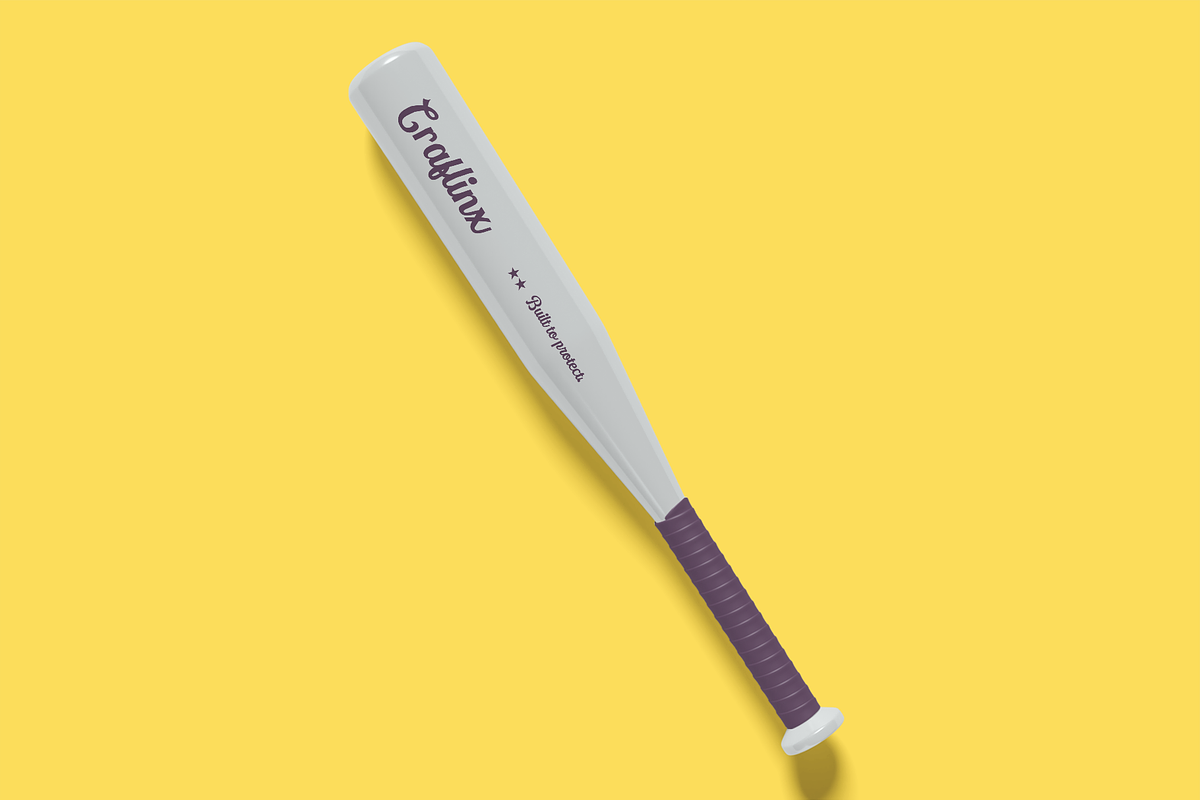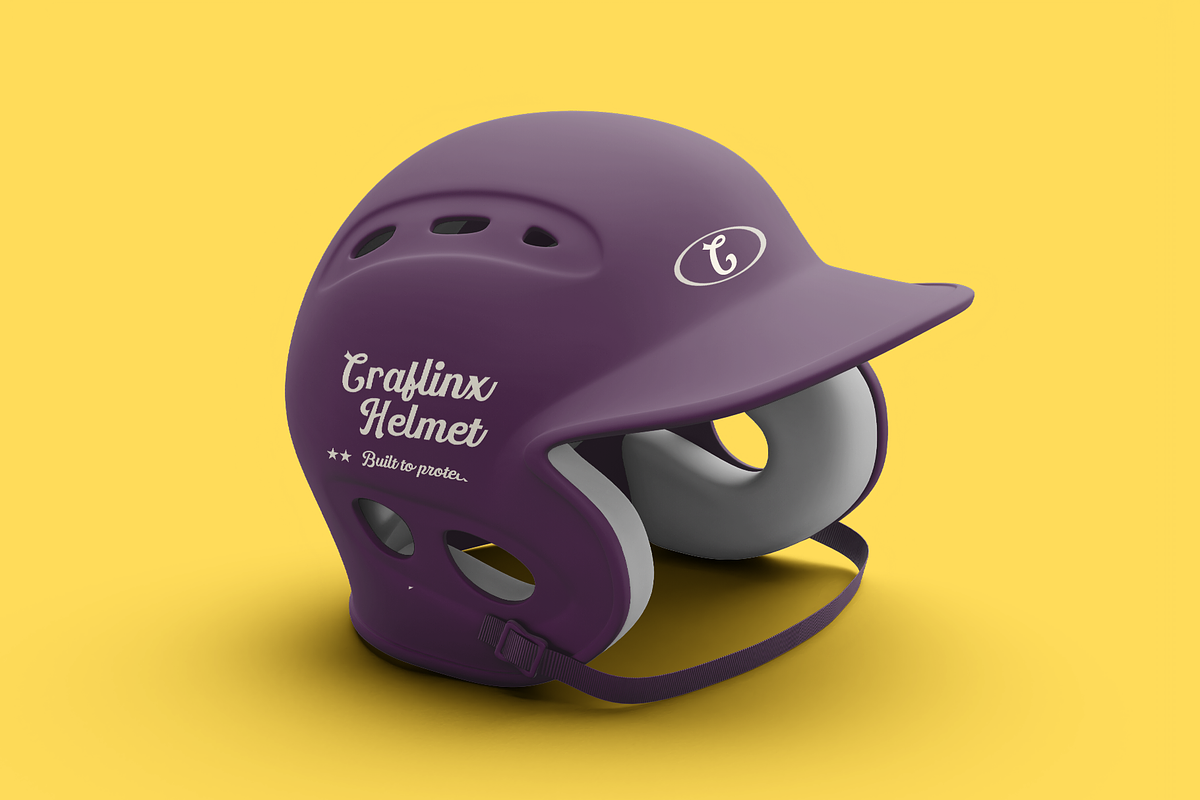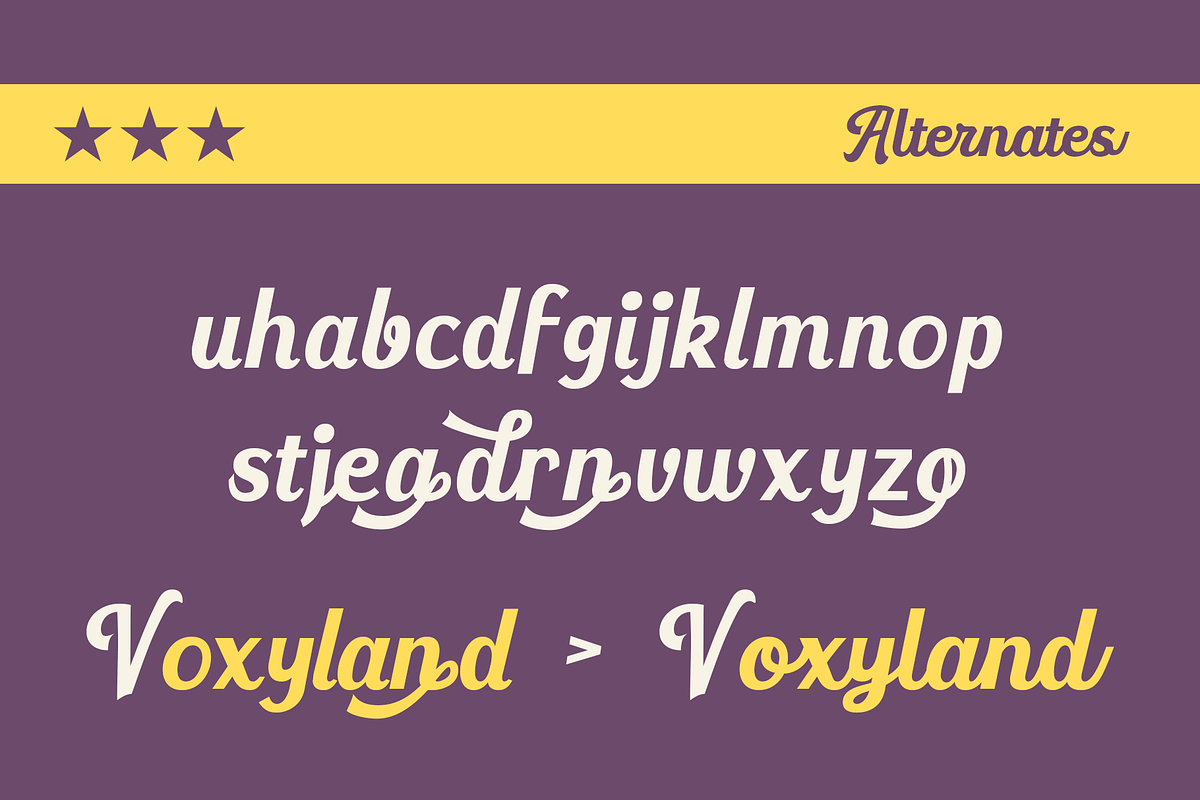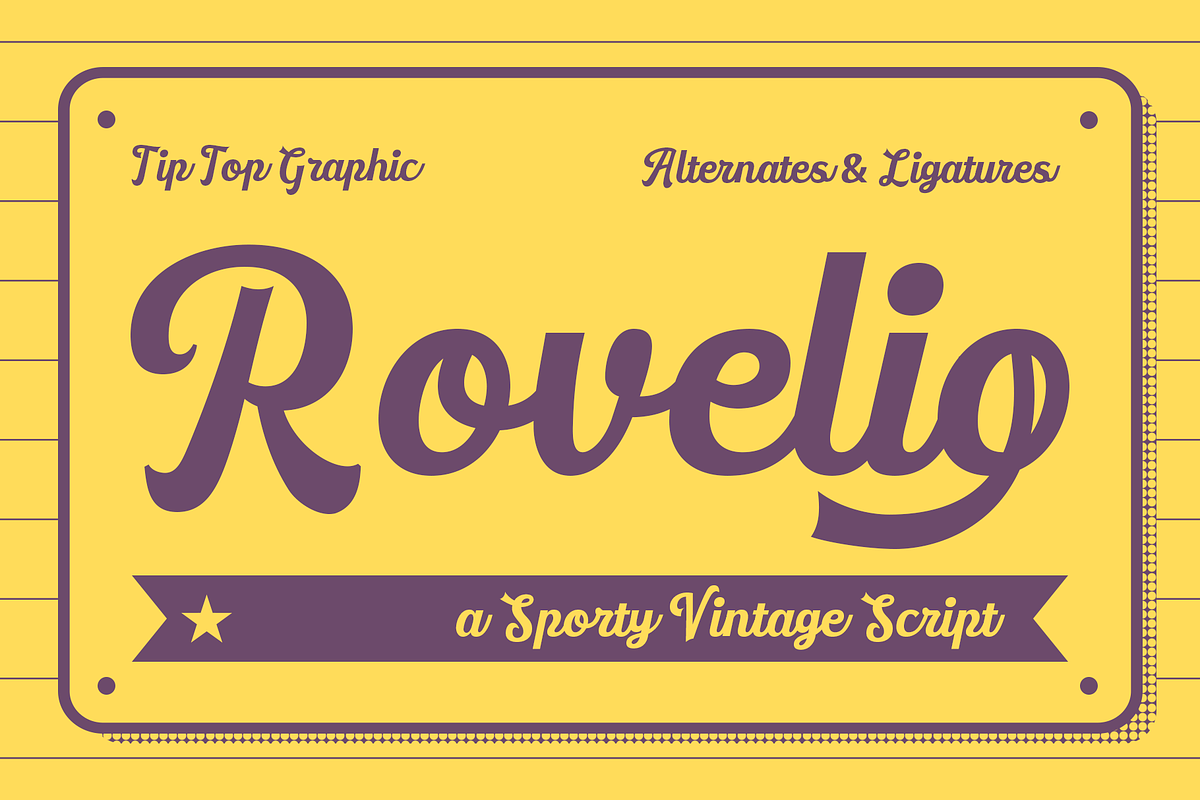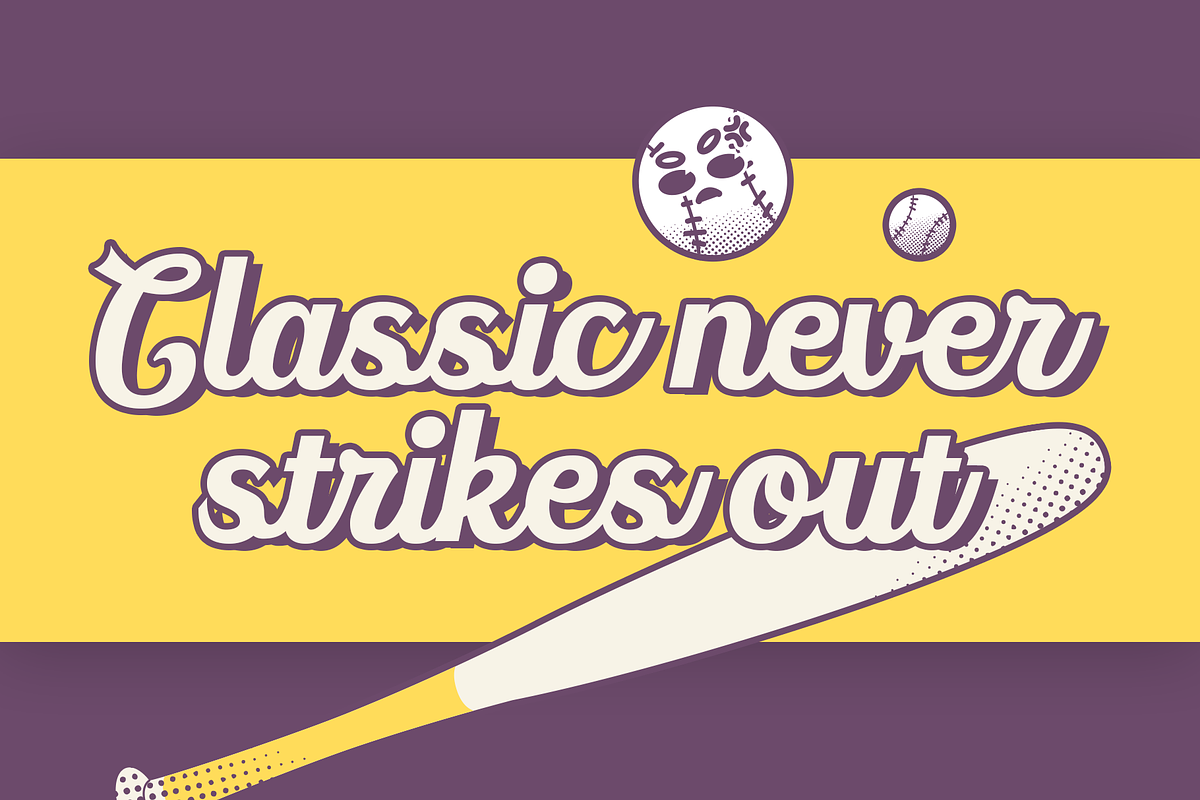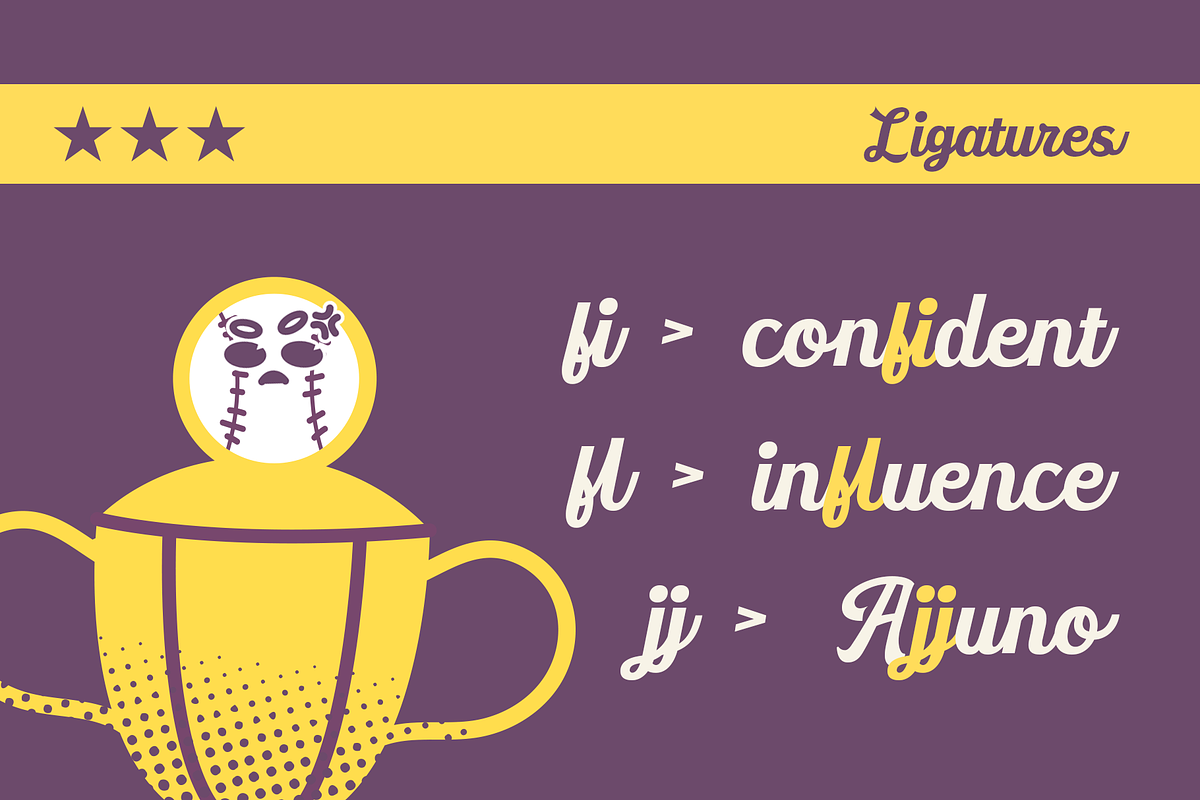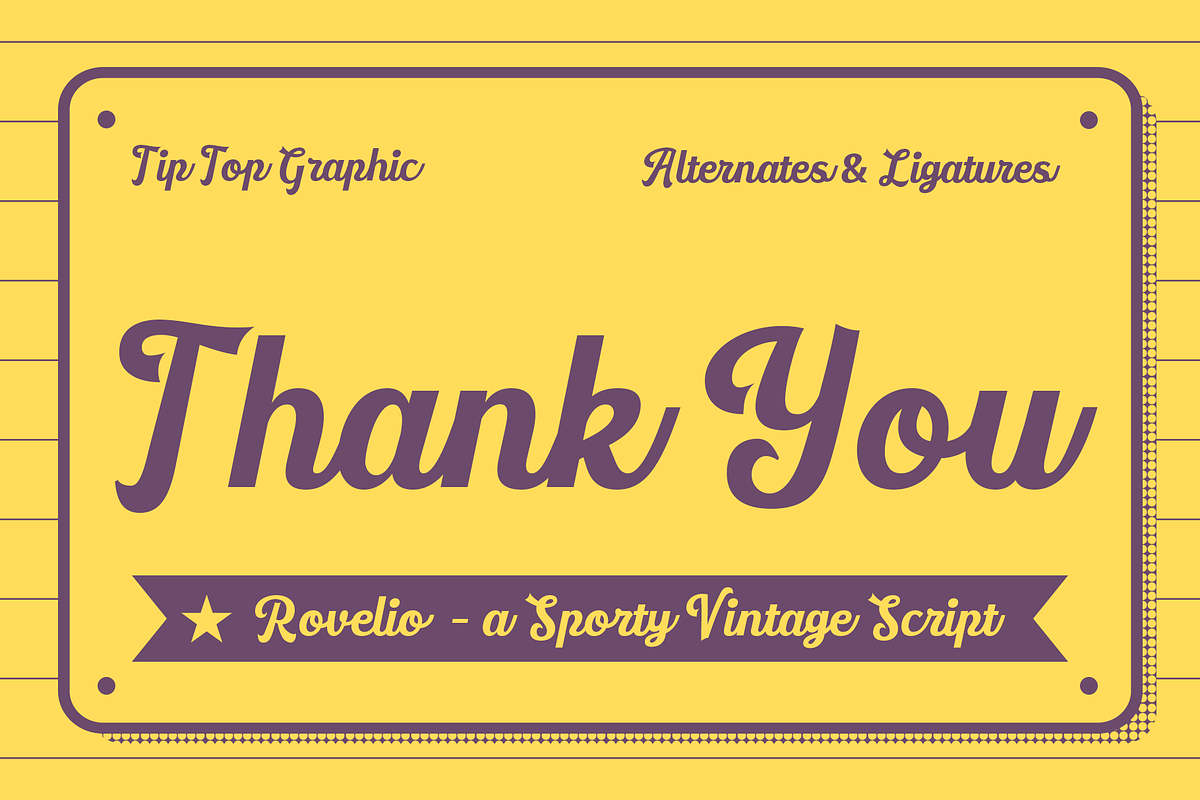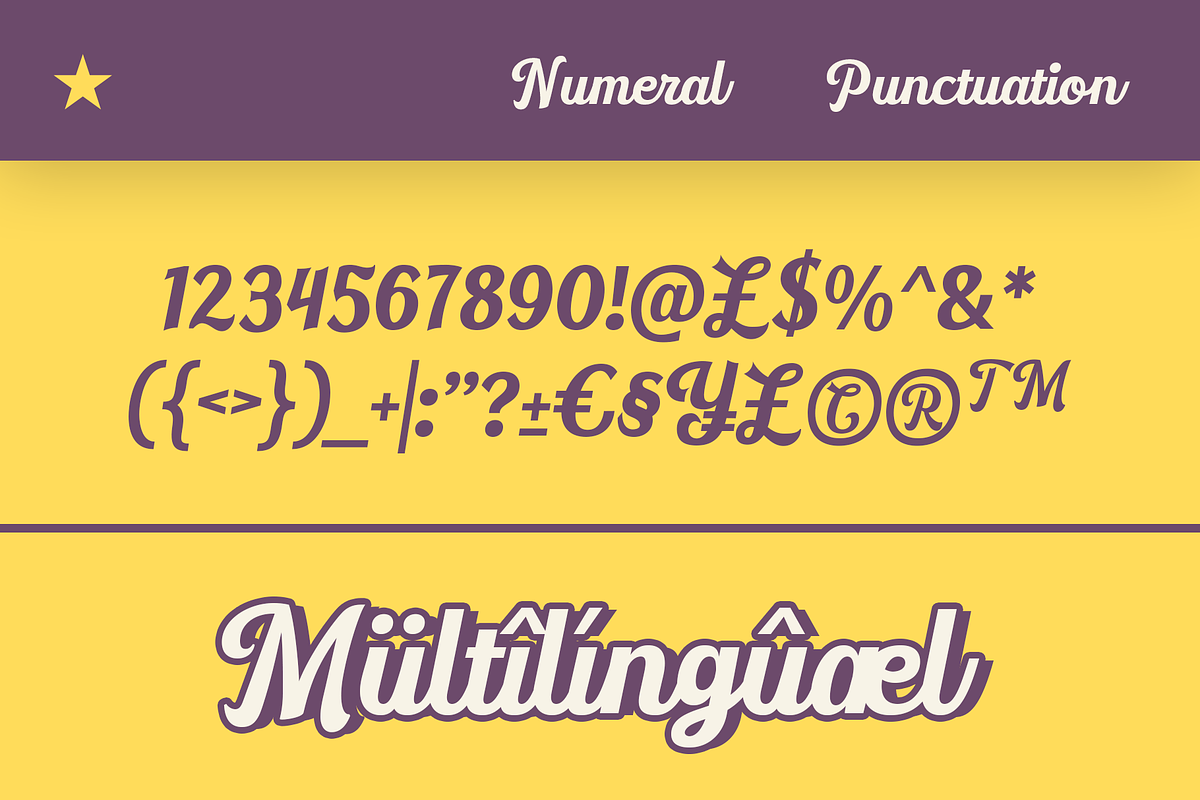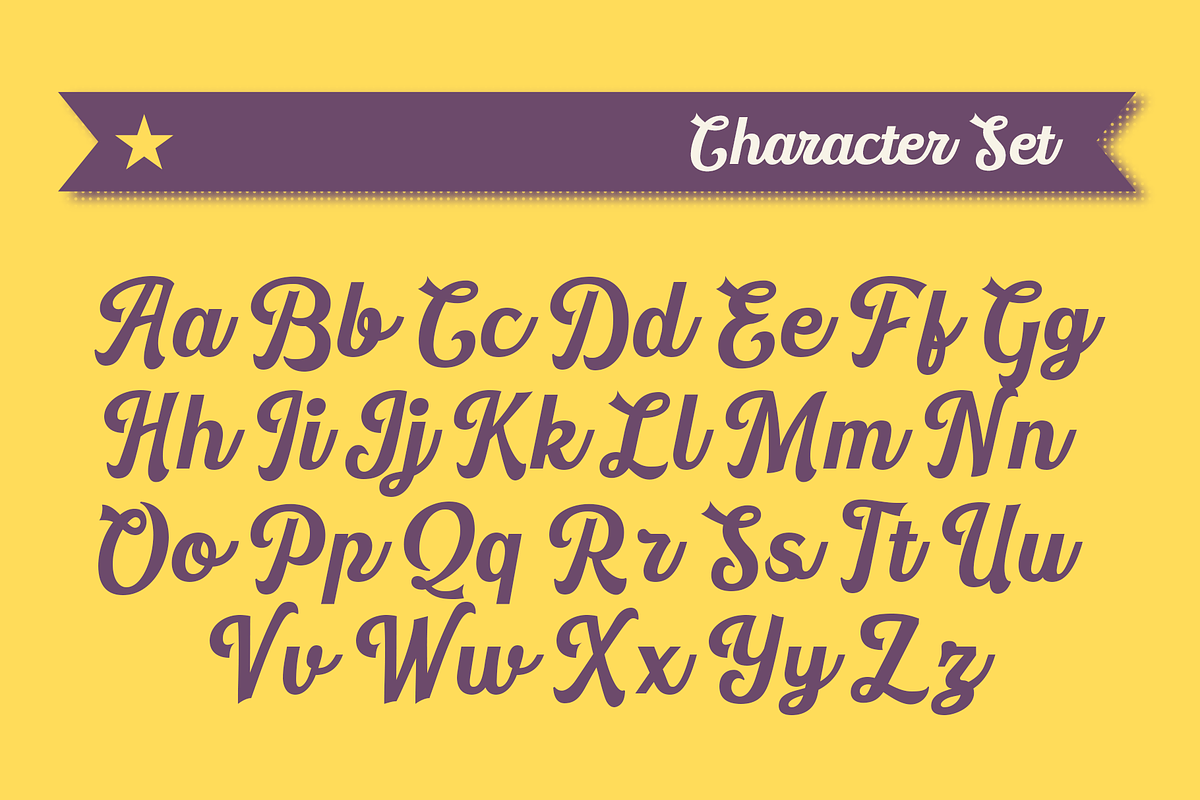
Rovelio – A Sporty Vintage Font
Rovelio – A Sporty Vintage Font blends athletic energy with classic retro charm. Its bold letterforms, sharp edges, and nostalgic varsity-inspired style make it perfect for designs that need a strong and dynamic presence. Rovelio captures the look of vintage sports jerseys, team posters, and old-school athletic branding.
Ideal for sports logos, apparel, badges, posters, merchandise, and any project that wants a powerful retro-sporty vibe. Rovelio brings energy, confidence, and timeless style to every design.
Rovelio – A Sporty Vintage Font features:
- Punctuation & Numbers
Elevate and explore the design possibilities with this Sporty Vintage Font!